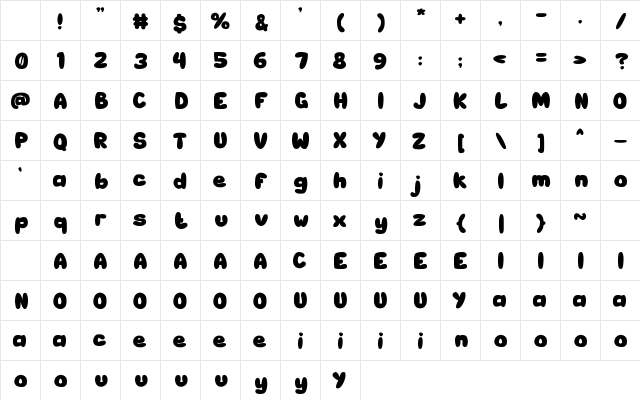
Complete Happy-Days Regular glyph index. Displaying only characters natively supported by Happy-Days Regular font.
Happy-Days is a composed and adaptable typeface that performs quietly and consistently across a wide range of design contexts.